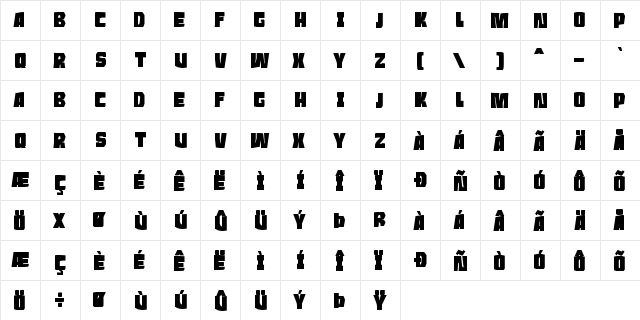
Roaring Jungle Regular
Design Context for Roaring Jungle Typeface
Roaring Jungle is a composed and adaptable typeface that performs quietly and consistently across a wide range of design contexts.